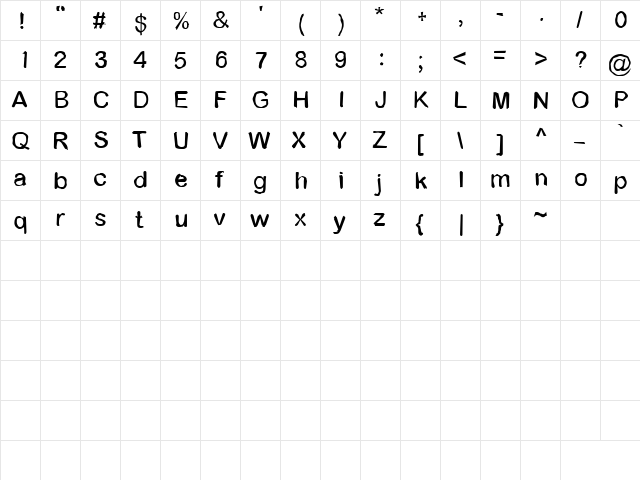
Pathfinder Bold Font Preview
Pathfinder Bold
Design Context for Pathfinder Typeface
Pathfinder is a composed and adaptable typeface that performs quietly and consistently across a wide range of design contexts. The heavy weight commands attention and anchors typographic hierarchies.